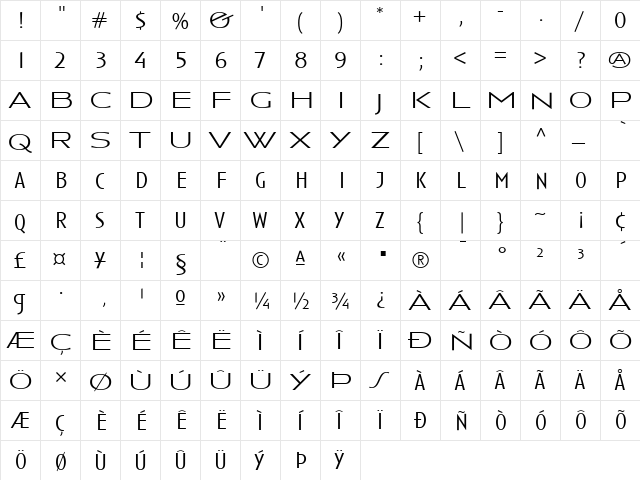
Anisette Light Regular
| Foundry | The Font Bureau Inc |
| Designer | Jean-Francois Porchez |
Design Context for Anisette Light Typeface
Anisette Light takes a measured approach to typography — its balanced proportions and neutral character make it a reliable workhorse for both digital and print work. Its slender proportions lend an understated elegance to any composition.